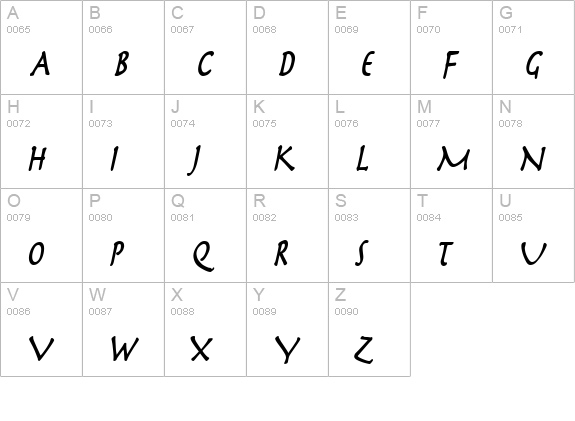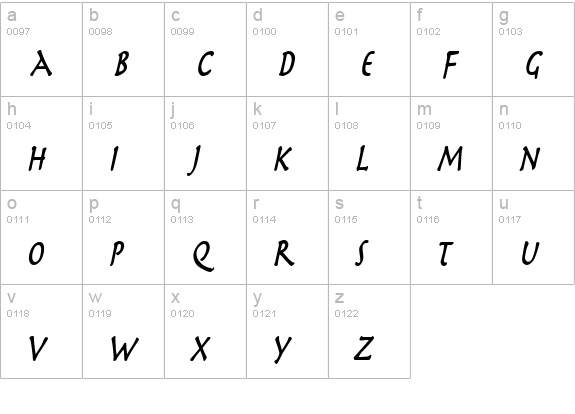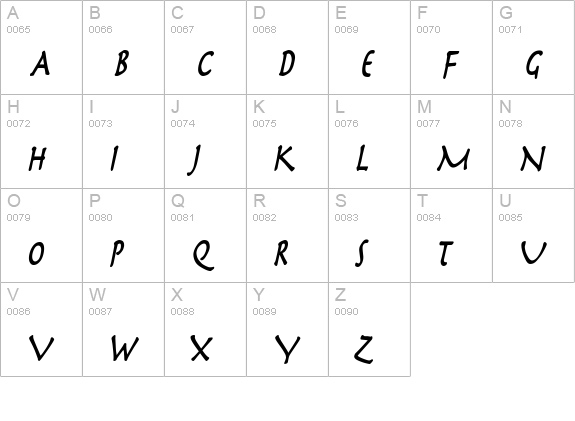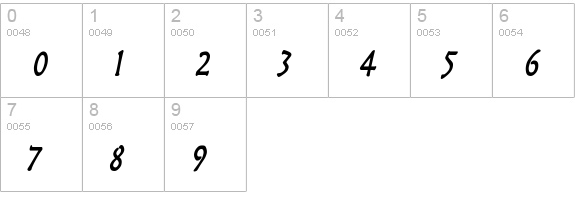
Mythology Thin BoldItalic is a delicate, low-contrast variant in the Mythology typeface family \xE2\x80\x94 well suited to fashion editorial, minimal branding, and high-contrast display.
Introducing Mythology Thin BoldItalic font - a captivating display typeface that combines elegance with a touch of mystique. This unique font exudes a sense of ancient mythology and grandeur, making it perfect for adding a magical flair to your designs. The bold and italicized style of Mythology Thin adds a dramatic effect, making your text stand out with strength and sophistication. And the best part? Mythology Thin BoldItalic font is available for free download at FontsMarket.com! Embrace the enchanting allure of this exquisite font and elevate your projects to new heights. Whether you're working on branding, editorial design, or any creative endeavor, Mythology Thin BoldItalic font is sure to leave a lasting impression. Download it now and unleash the power of mythology in your designs.